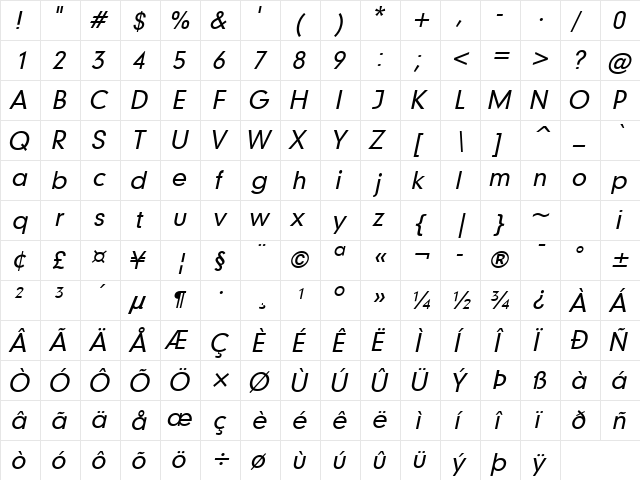
Geo 579 Italic Font Preview
Geo 579 Italic
Geo 579 Italic Font Details
Design Context for Geo 579 Typeface
Geo 579 offers clean, dependable letterforms without strong stylistic allegiance, making it a practical choice for designers who need flexibility. The dynamic lean of this cut emphasises speed and emphasis in any layout.
Pro Tip: Use Geo 579 for emphasis, pull quotes, and subheadings where its slanted energy can add rhythm to the layout.